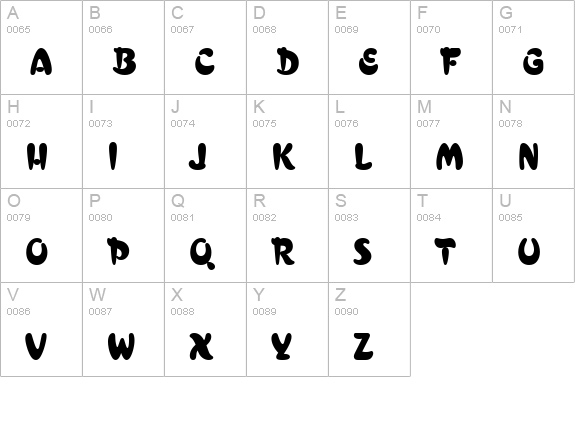
CroissantD Font Details
Introducing CroissantD font, a modern and elegant typeface that exudes sophistication and style. With its unique blend of curves and angles, this font is perfect for adding a touch of class to your designs. What sets CroissantD font apart is not only its sleek design but also the fact that it is completely free to download. That's right, you can elevate your projects with this stunning font without spending a dime. Simply head over to FontsMarket.com to get your hands on this versatile typeface and start creating eye-catching designs today. Whether you're working on branding materials, invitations, posters, or any other project that requires a touch of elegance, CroissantD font is sure to make a lasting impression. Don't miss out on the opportunity to enhance your designs with this beautiful and free font. Download CroissantD now and let your creativity shine!